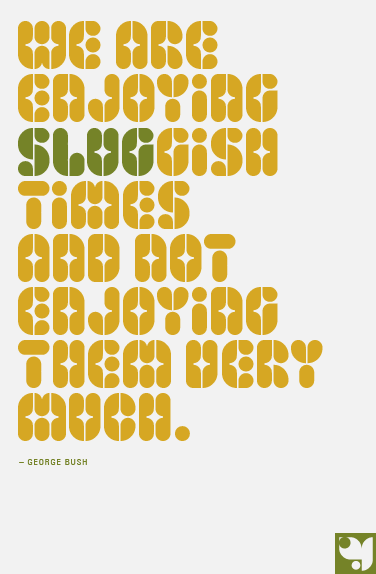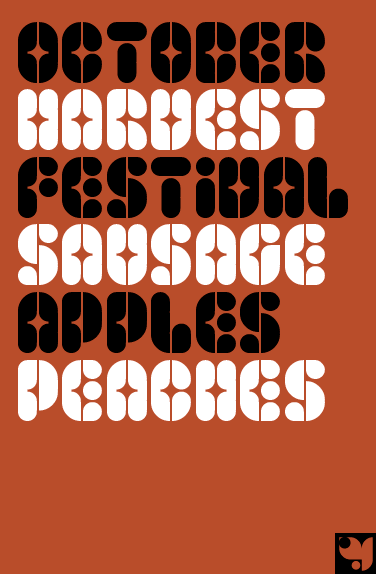
Those little tweaks have added style add legibility, to produce a very happy and cool looking carnival font.
I'd maybe look at the Z, and swap the bricks so the sharper edge is a the top. Lovin the 2 & 4.
I think what I like best about your work is that it seems you have a fairly good idea of what the finished font will look like before you start. I admire that.
you had me at h
@thal: Thanks! This one came together quite quickly. I saw the Poff font and thought, "I bet this would look cool with this kind of treatment". Beyond that I just wanted it to have a happy summery vibe. That more then anything influenced each specific character. For instance, I thought using a lowercase 'i' was more 'poppy' then an uppercase 'I'.
Another beautiful fontstruction by afrojet. I really agree with thamalic. There are no letters that seem to be out of place or random. You just know how to work with white space and weights. For a trained eye it's easy to see that this is the work of an experienced graphic designer. And still it's not just a rigid construction but hase those little characteristic features, that make an interesting font. Like the dot on the I and how the bar of the T is seperated from the stem. My favourite is propably the Y, so simple yet so interesting to look at.
Geez, what does one do when a commercial font comes along and swipes the name off a fontstruction? I must say that the name sticks better here!
I'm sue it's just a coinkidink, but I agree that the name is better suited here.
How about dueling samples? Kinda like a visual rap battle. You know, kerning the dozens. We’ve seen your bold and fitting style – and it’s truly off the chizzle – but how about a sample* from the other guy’s myfonts page and we let the people decide? Technicolor yawn, anyone?